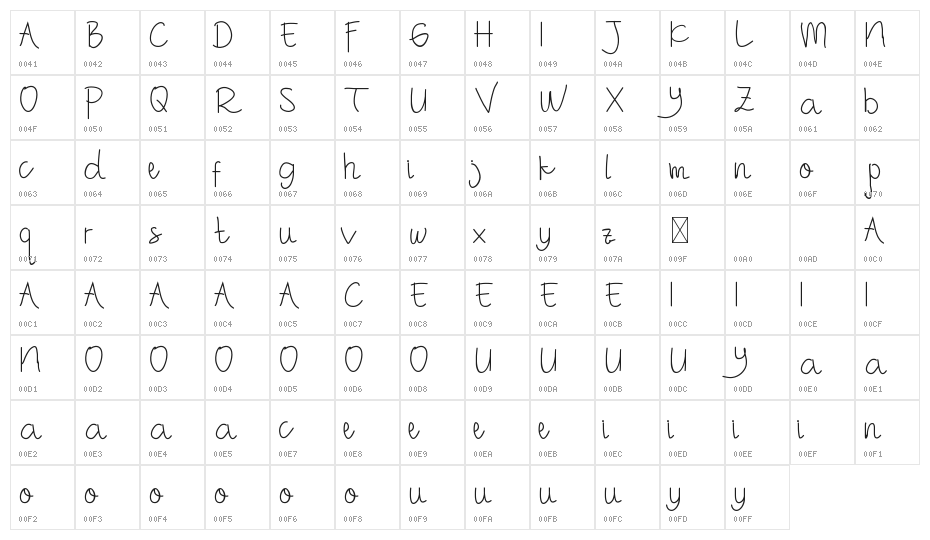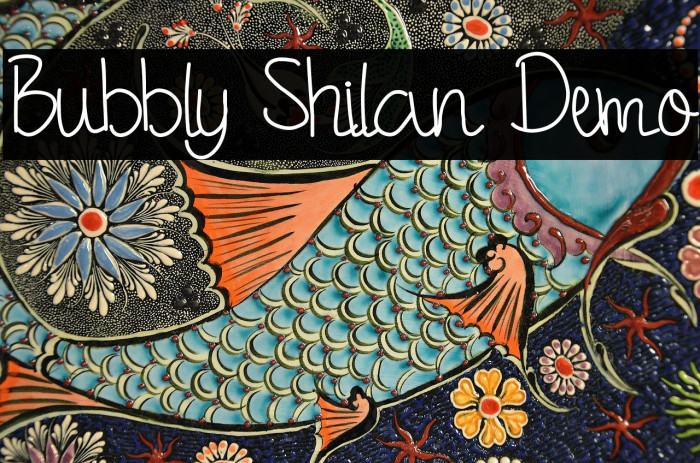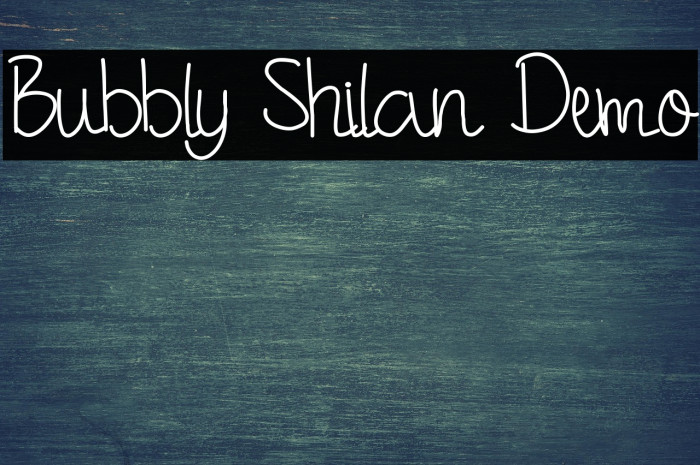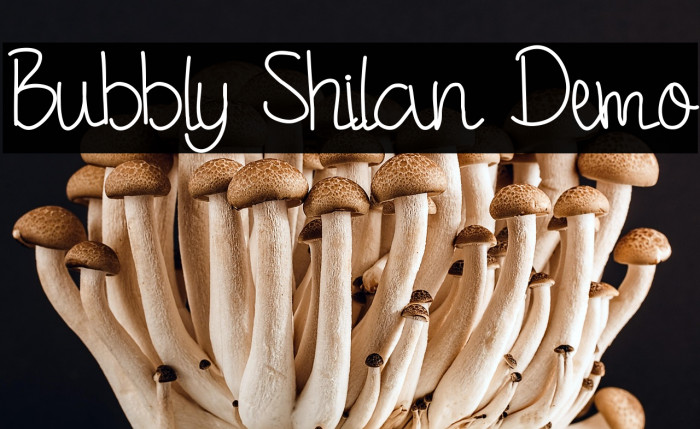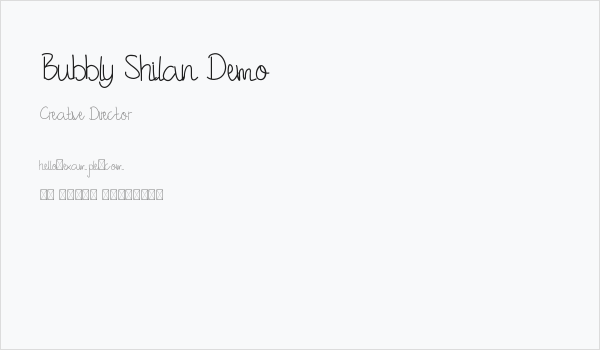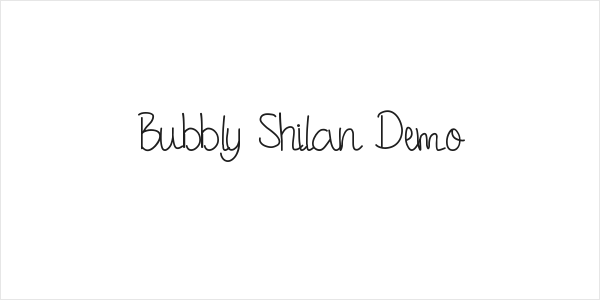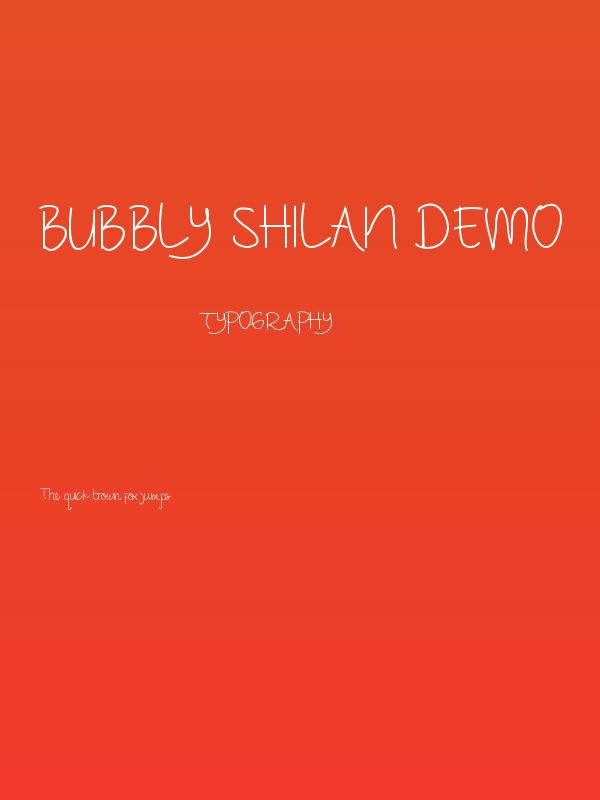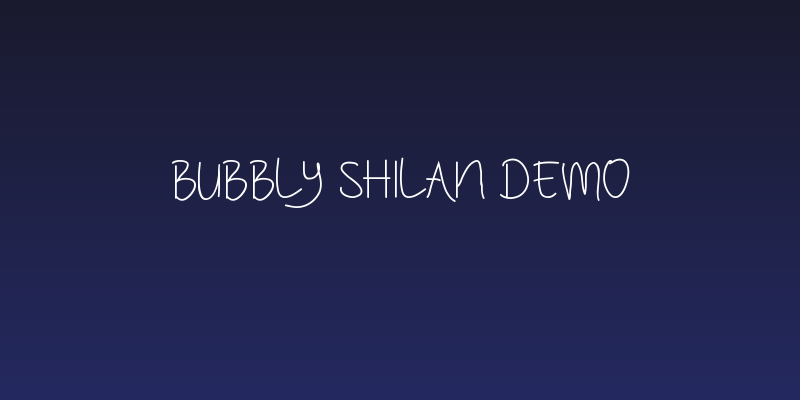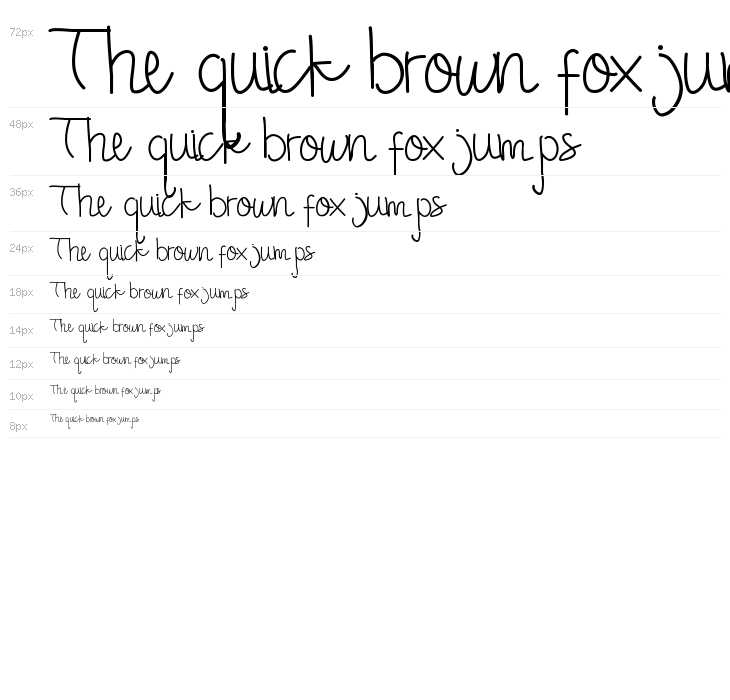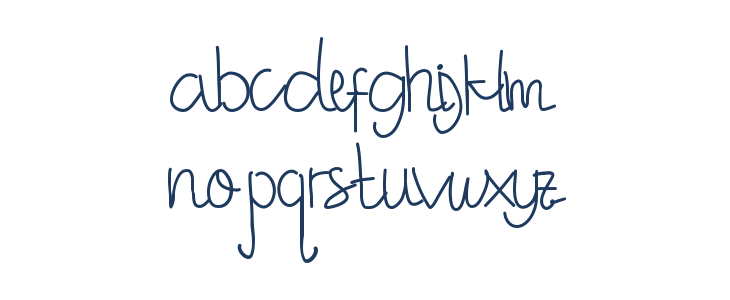
Bubbly Shilan Demo Font
Bubbly Shilan Demo Description
This font features a playful and whimsical handwritten style, characterized by its bubbly and rounded letterforms. The strokes are smooth and consistent, giving it a friendly and approachable appearance. The uppercase and lowercase letters maintain a cohesive look, with slight variations that add to its charm. The font includes a full set of numerals and a selection of special characters, making it versatile for various design needs. Its informal and casual style is perfect for projects that require a personal touch.
| Use Case | Logos, Headlines, Social Media |
| Proposed Projects | Ideal for greeting cards, children's books, playful branding, and social media graphics. |